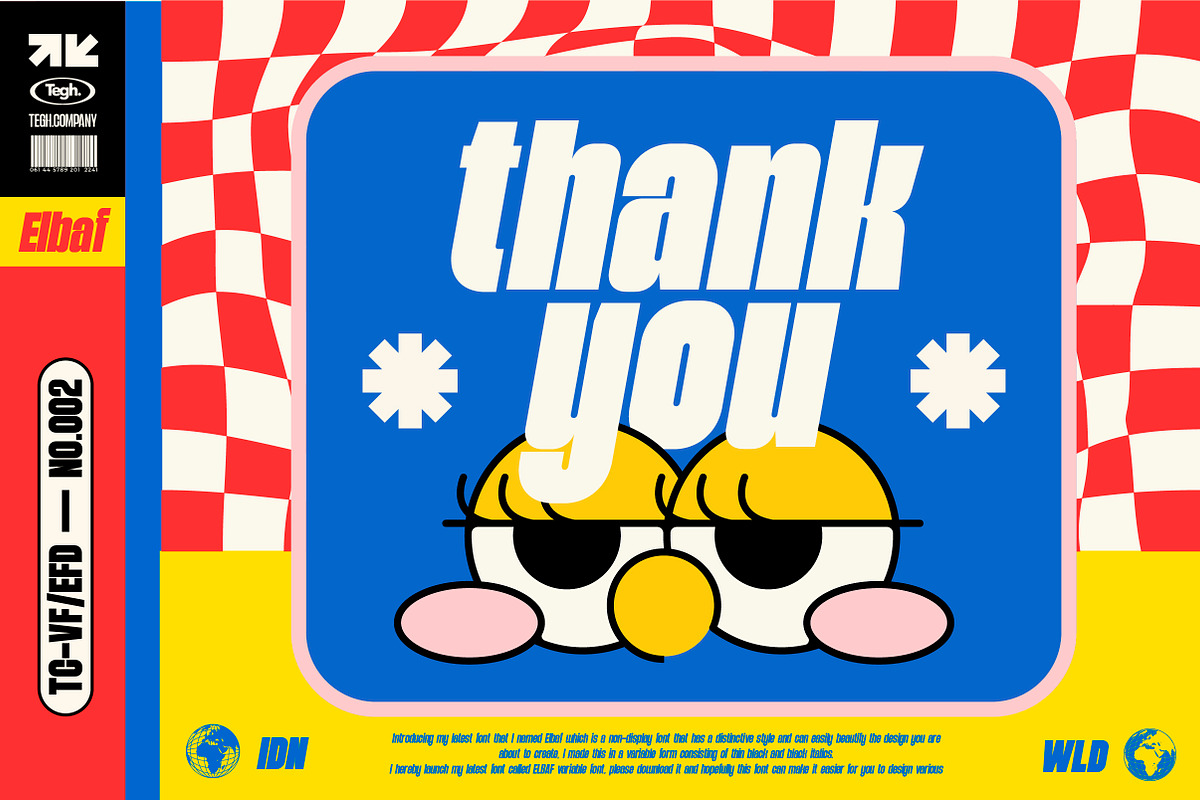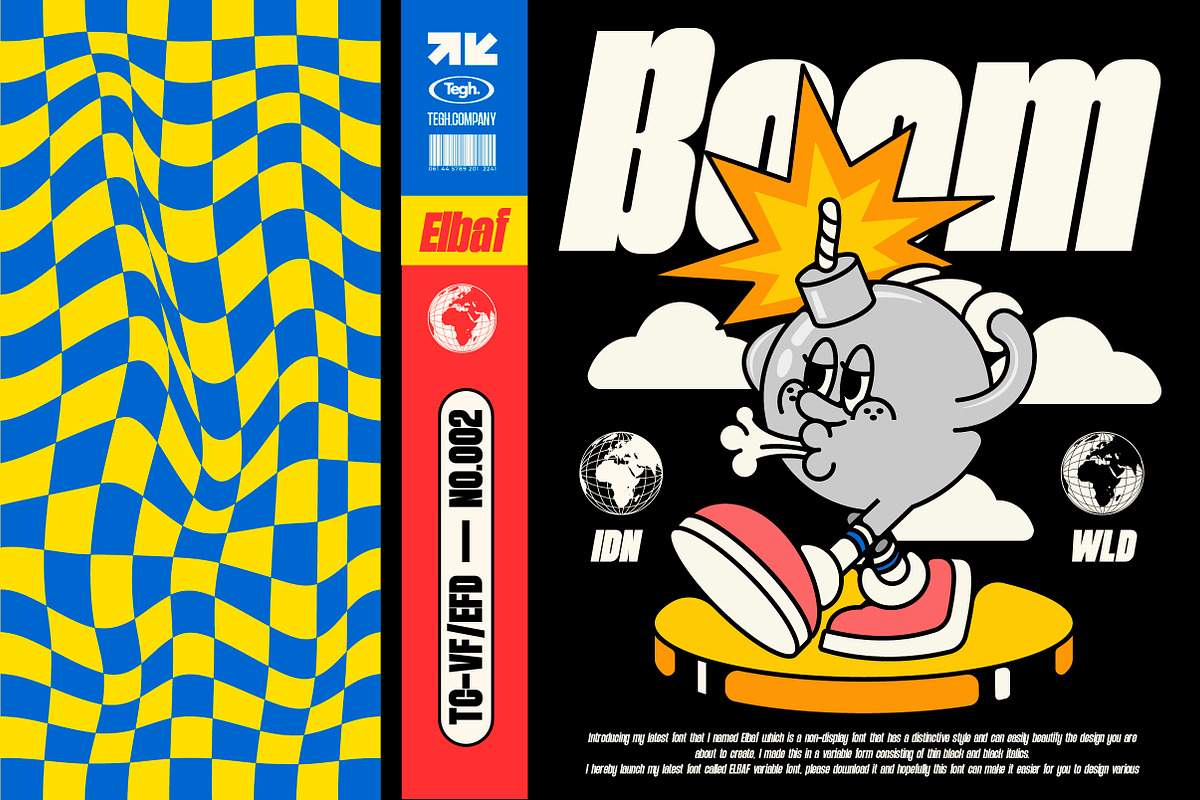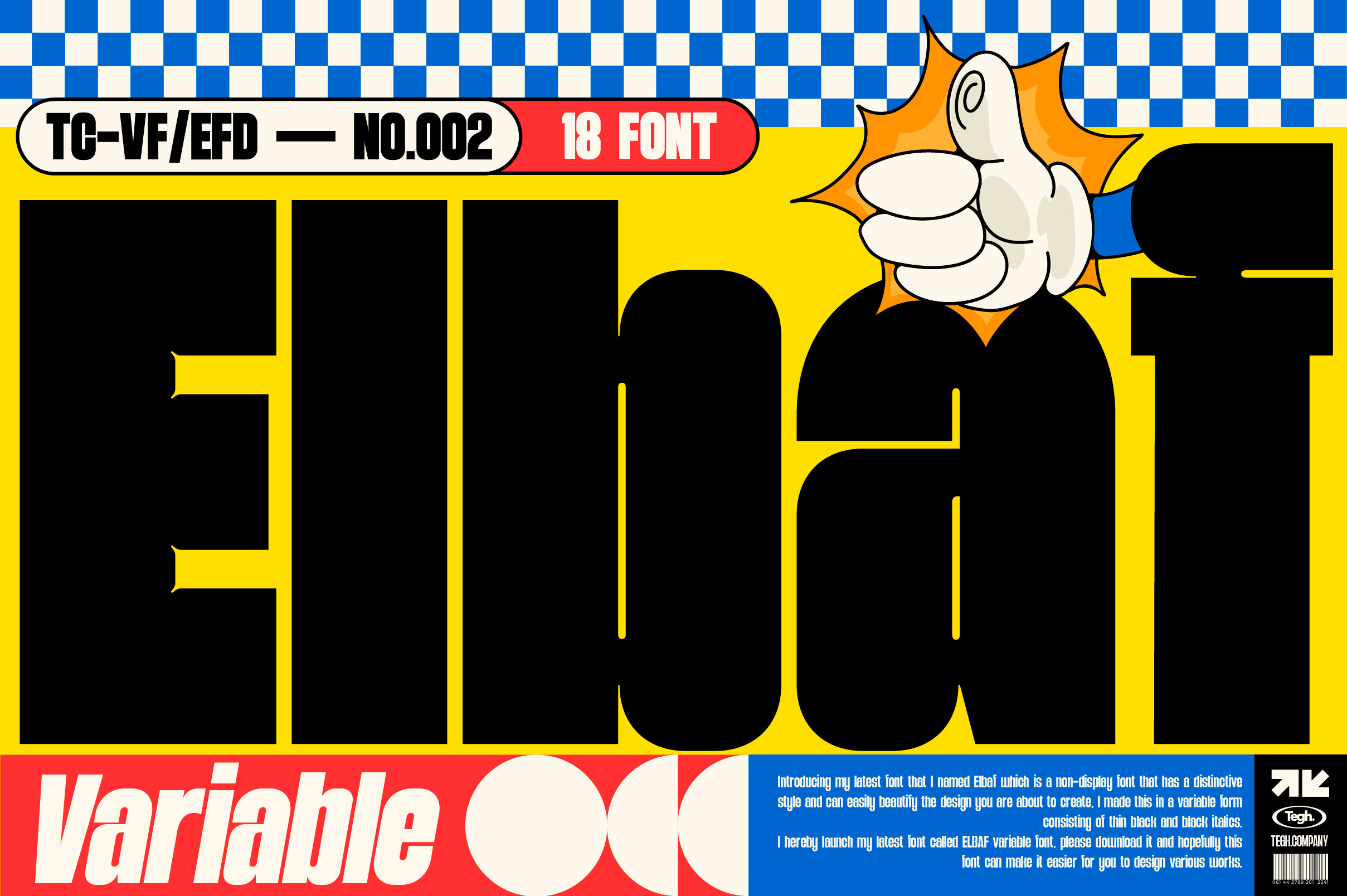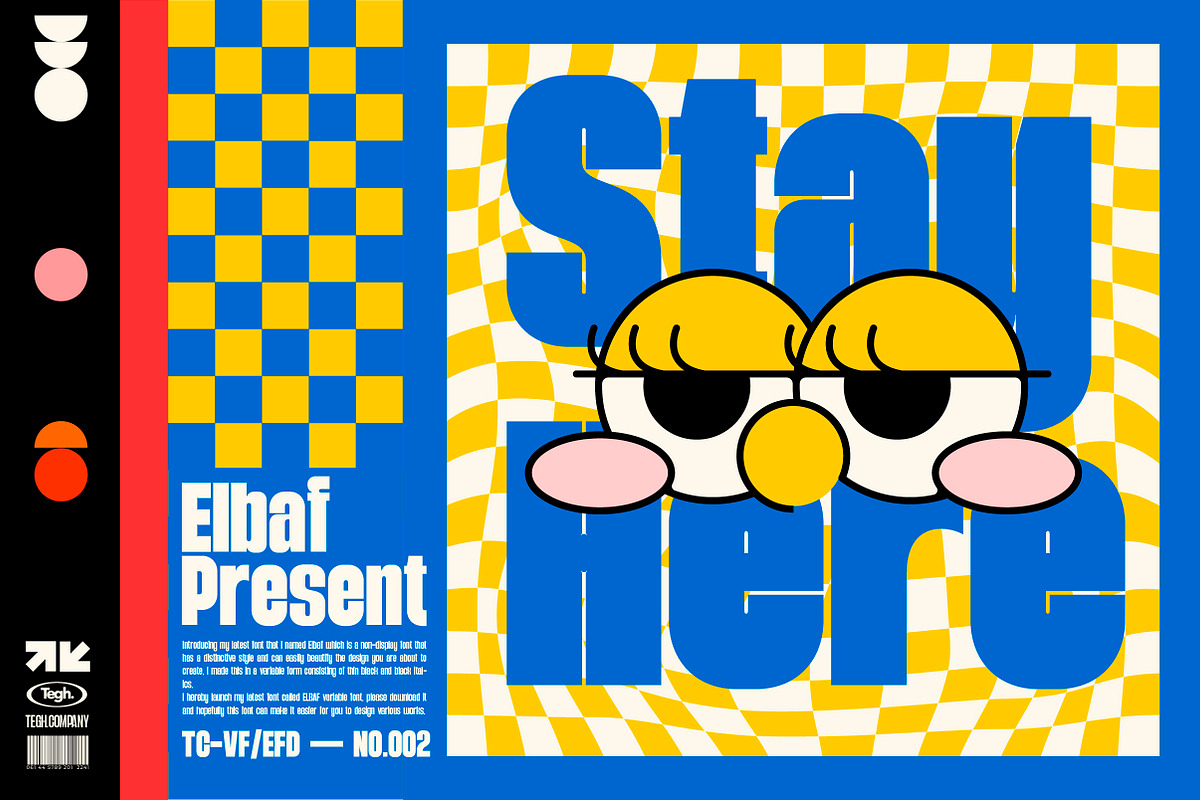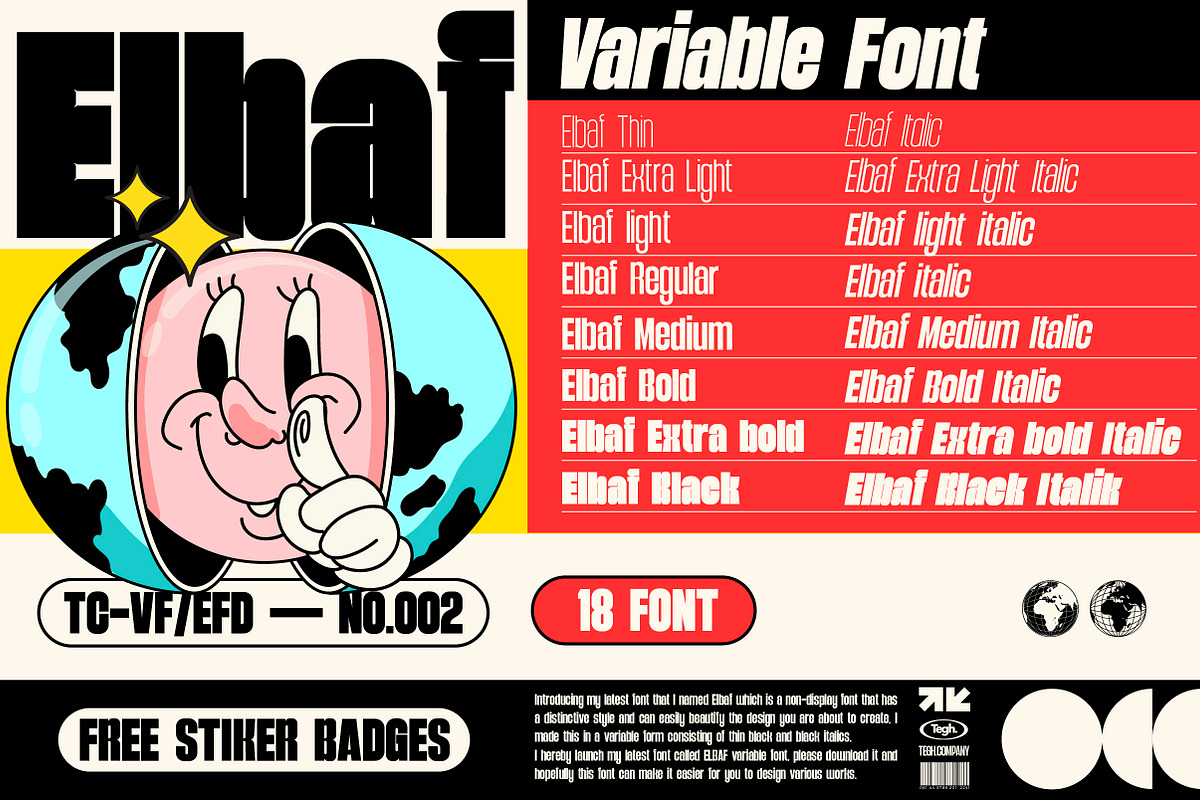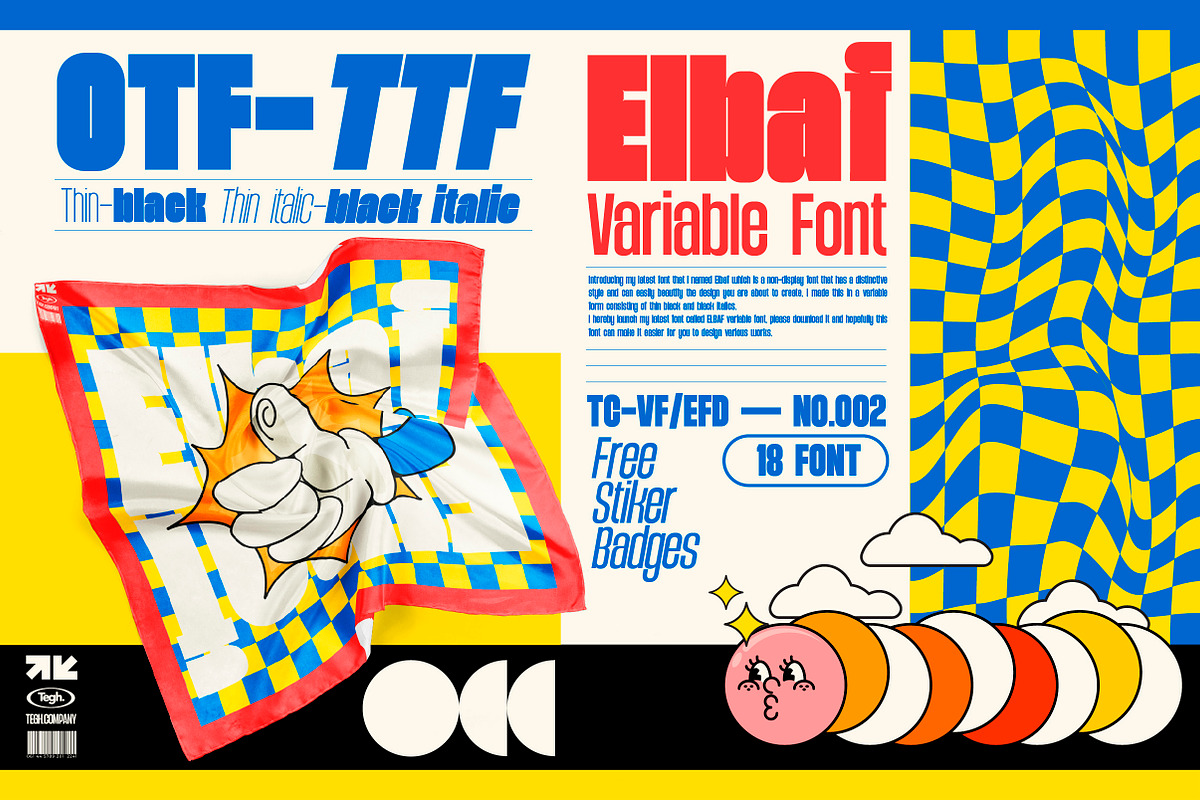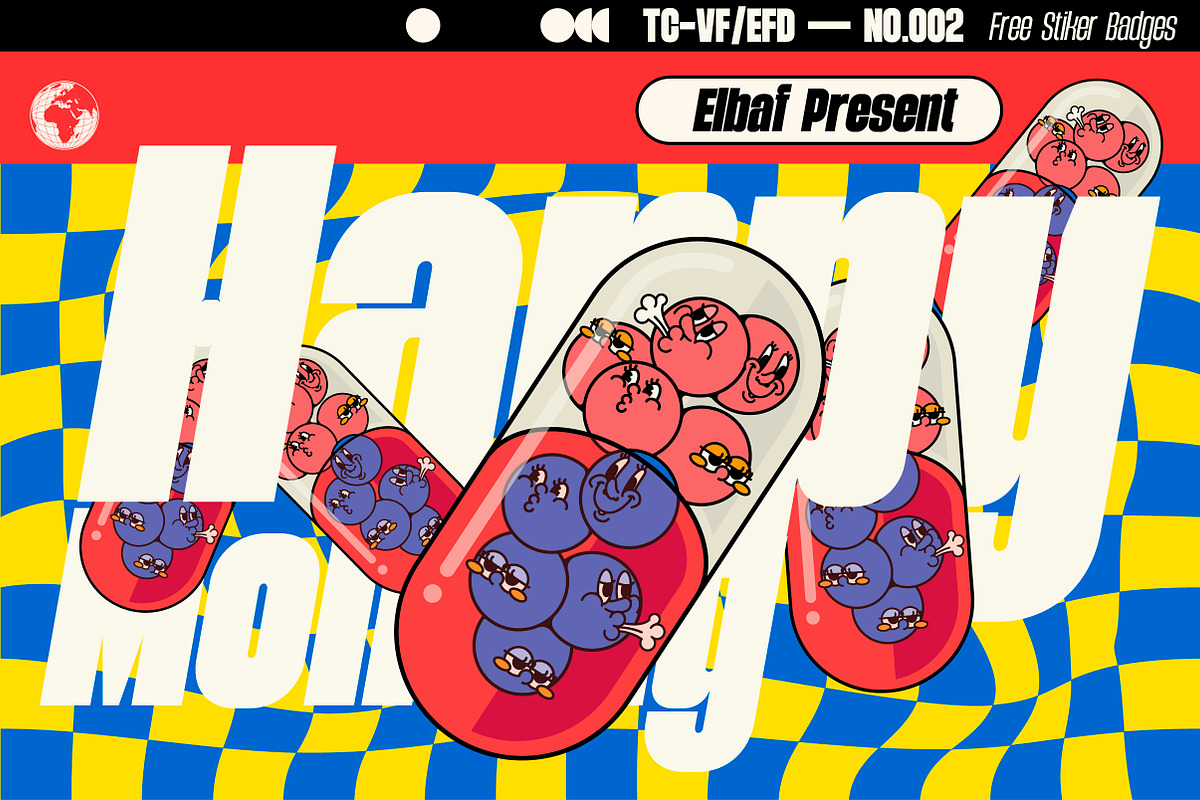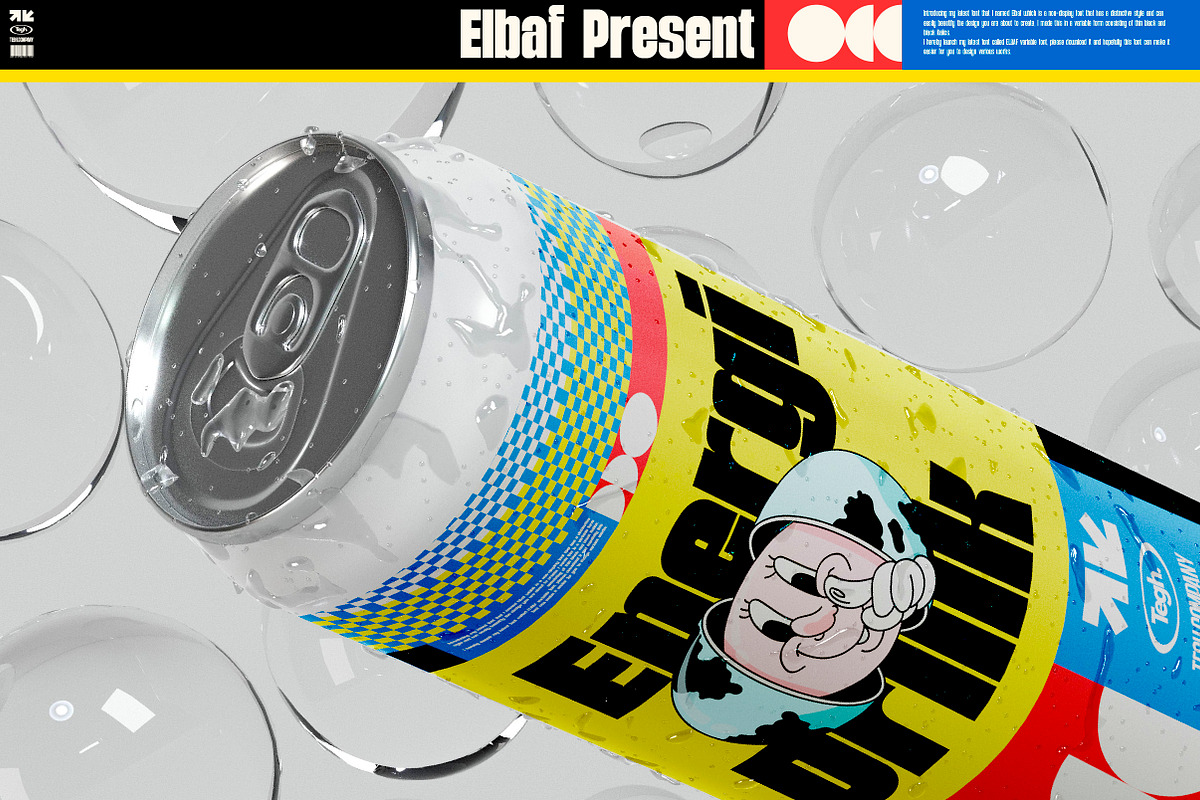
Elbaf Variable Font
Introducing my latest font that I named Elbaf which is a non-display font that has a distinctive style and can easily beautify the design you are about to create, I made this in a variable form consisting of thin black and black italics. I hereby launch my latest font called ELBAF variable font, please download it and hopefully this font can make it easier for you to design various works.